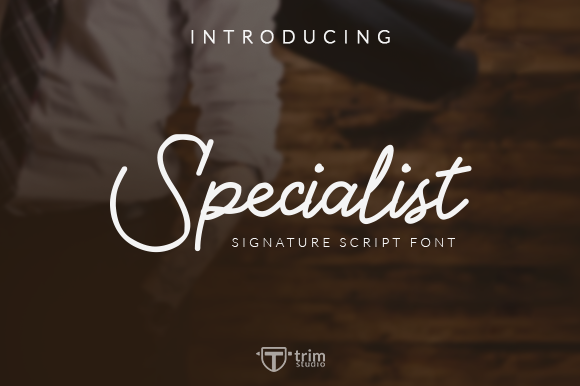
Dive into the world of Specialist Font, a breathtaking script font designed to enthrall and captivate. This exquisite font family, masterfully crafted by Trim Studio, is a visual symphony that dances across your screen, enchanting you with its striking elegance. Specialist Font is the epitome of beauty and clarity, ensuring that your posters, branding, and designs radiate with sophistication and charm.
Indulge in the captivating allure of Specialist Font, a script font that beckons you to express your creativity in a myriad of ways. Experience the joy of crafting unique signatures that exude your personality. Transform your wedding invitations into works of art, imbuing them with a romantic charm that will leave your guests spellbound. Design business cards that command attention, leaving a lasting impression on potential clients. Let the Specialist Font inspire you to create captivating quotes, travel designs, and marketing materials that leap off the page.
With Specialist Font, you hold the key to unlocking a world of design possibilities. Its versatility knows no bounds, effortlessly blending with a symphony of colors and themes. Unleash your inner artist and witness your designs bloom into masterpieces that resonate with your audience.